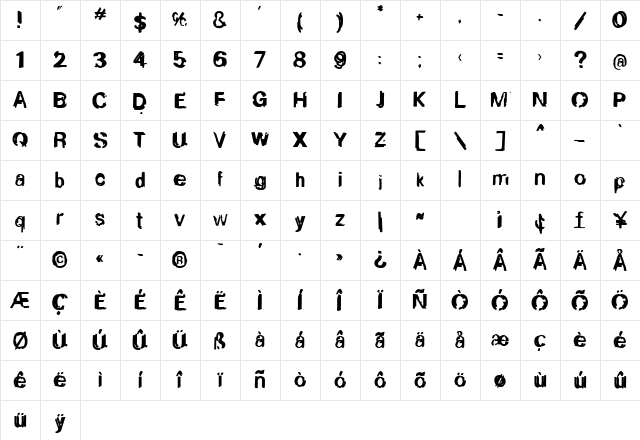
Boggle Medium Free Font
Boggle Medium
Design Context for Boggle
Boggle is a composed and adaptable typeface that performs quietly and consistently across a wide range of design contexts.